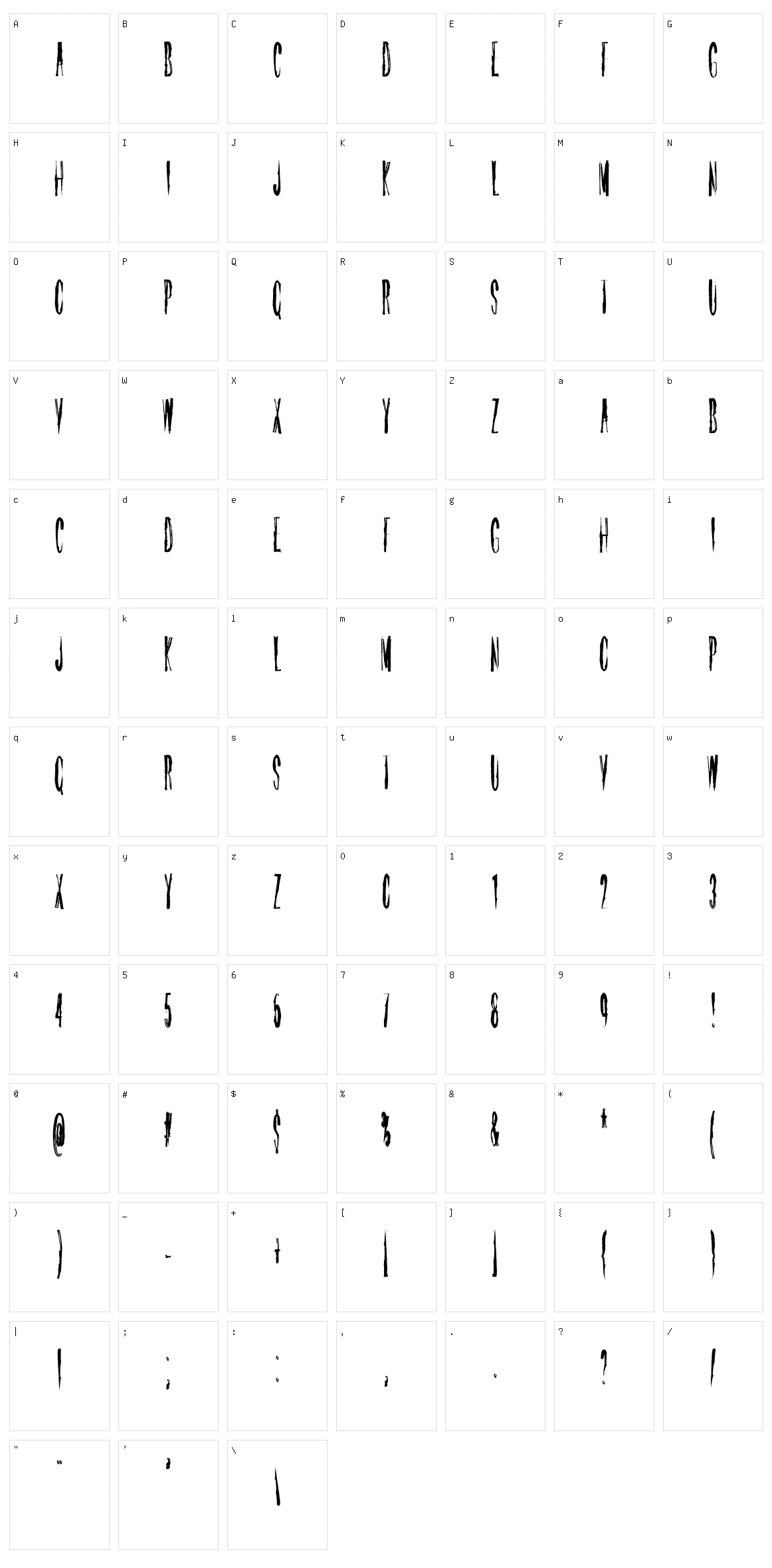
The free font April Ten is carefully designed by Iordanis Passas, showcasing a thoughtful balance of creativity and usability and falls under the Horror font style. When you download the ZIP file, it contains only 131.47 KB of font files, making it lightweight and quick to download. Please review the license details below to understand permitted usage and distribution rights. If license information is not available, we recommend using this font for personal projects only or contacting the author directly for commercial usage permissions.